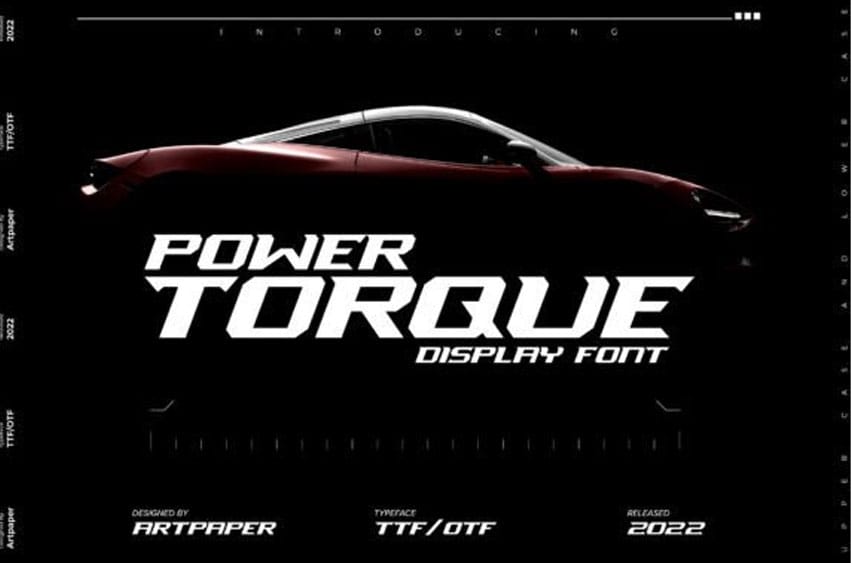
Power Torque Font is a cool and bold display font.
Use it for all your sports-related or racing designs, and you will love the results!
Power Torque Font is a cool and bold display font.
Use it for all your sports-related or racing designs, and you will love the results!